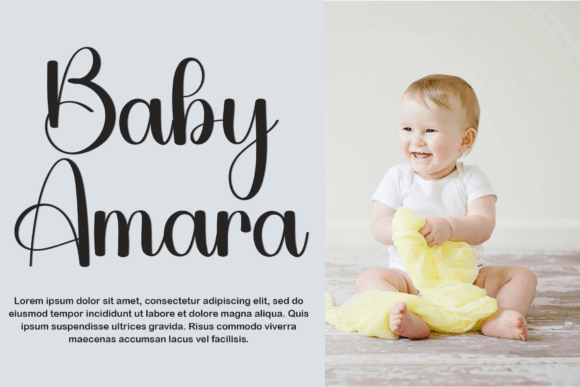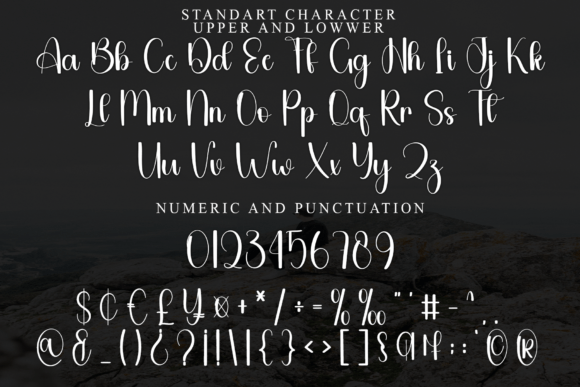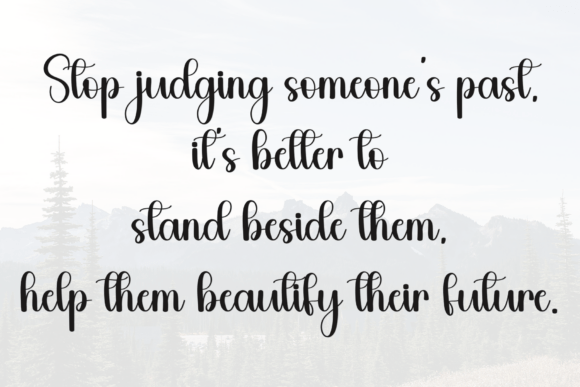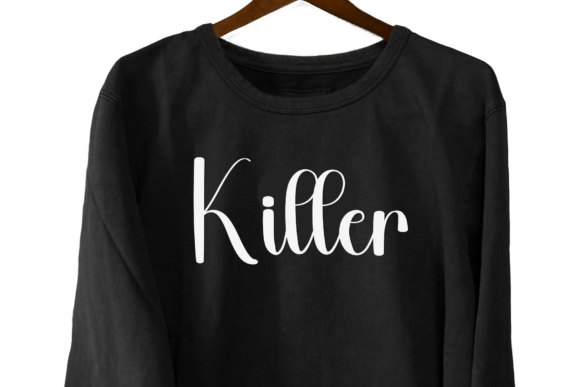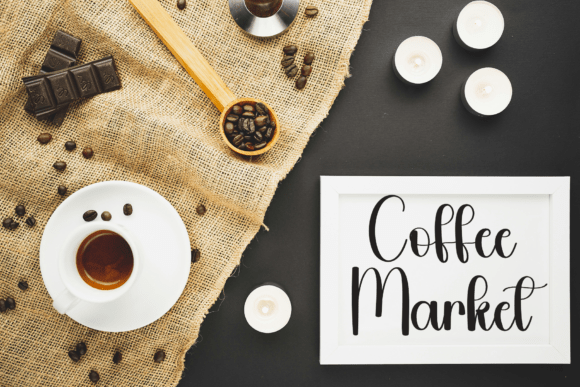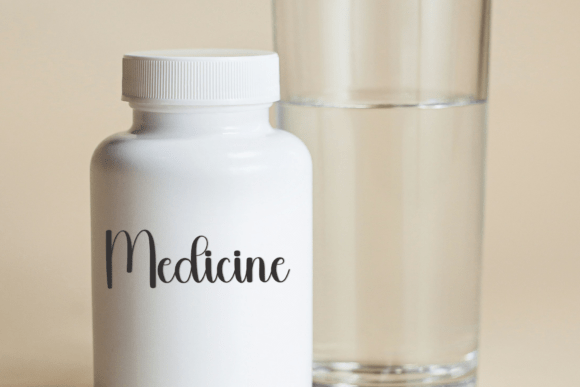
Introducing the Beautiful Baby Font: Elevate Your Designs with Elegance
The Beautiful Baby Font is a stunning script font that embodies the perfect blend of modern calligraphy and classic charm. With its graceful swashes and fluid strokes, this elegant font is designed to bring a touch of sophistication to every word. Whether you’re a designer, crafter, or simply someone who appreciates beautiful typography, this font is sure to captivate your audience and leave a lasting impression.
What Makes the Beautiful Baby Font So Special?
This exquisite font is carefully crafted with attention to detail, featuring stylish swashes that add a romantic and artistic flair to your text. The fluid strokes and connections between letters create a sense of movement and harmony, making your text feel personal and luxurious. The Beautiful Baby Font is perfect for a variety of design projects, including:
- Signage and display ads
Key Features of the Beautiful Baby Font
The Beautiful Baby Font boasts several key features that make it an exceptional choice for designers and crafters:
- Elegant swashes: Add a touch of sophistication and glamour to your text with the font’s beautiful swashes.
- Fluid strokes: The font’s fluid strokes create a sense of movement and harmony, making your text feel more dynamic and engaging.
- Modern calligraphy: The Beautiful Baby Font blends modern calligraphy with classic charm, making it perfect for designs that require a touch of elegance and sophistication.
- High-quality design: The font is carefully crafted with attention to detail, ensuring that it looks stunning in any design project.
How to Use the Beautiful Baby Font in Your Designs
Using the Beautiful Baby Font in your designs is easy and straightforward. Here are a few tips to get you started:
- Pair it with a simple font: Pair the Beautiful Baby Font with a simple, sans-serif font to create a striking contrast and make your text stand out.
- Experiment with swashes: Don’t be afraid to experiment with the font’s swashes and flourishes to add a personal touch to your designs.
- Use it for headings and titles: The Beautiful Baby Font is perfect for headings and titles, where its elegant swashes and fluid strokes can really shine.
- Make it your own: Don’t be afraid to get creative and make the font your own by adjusting the size, color, and style to fit your design needs.
Why Designers and Crafters Love the Beautiful Baby Font
The Beautiful Baby Font has quickly become a favorite among designers and crafters, and for good reason. Here are just a few reasons why:
- Unique and eye-catching: The font’s elegant swashes and fluid strokes make it truly unique and eye-catching, perfect for designs that need to stand out.
- Versatile: The Beautiful Baby Font is versatile and can be used in a wide range of design projects, from wedding invitations to social media graphics.
- Easy to use: The font is easy to use and can be easily integrated into your design workflow.
- High-quality design: The font is carefully crafted with attention to detail, ensuring that it looks stunning in any design project.
The Beautiful Baby Font is a stunning script font that is sure to elevate your designs with its elegant swashes and fluid strokes. With its modern calligraphy and classic charm, this font is perfect for designers and crafters who want to add a touch of sophistication and glamour to their work. Whether you’re creating wedding invitations, branding, logos, or social media posts, the Beautiful Baby Font is the perfect choice.